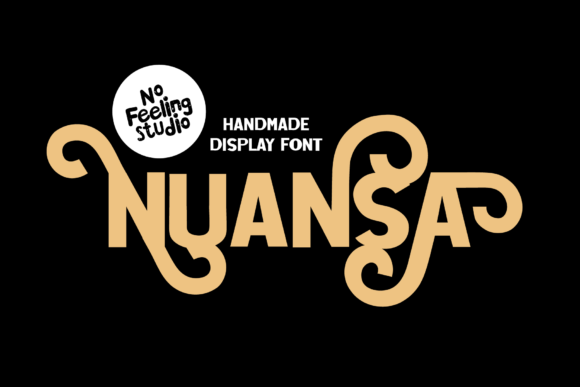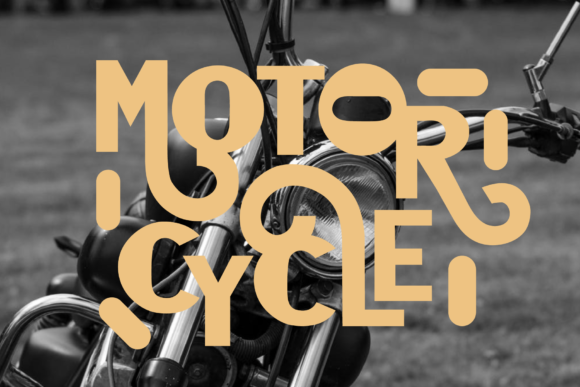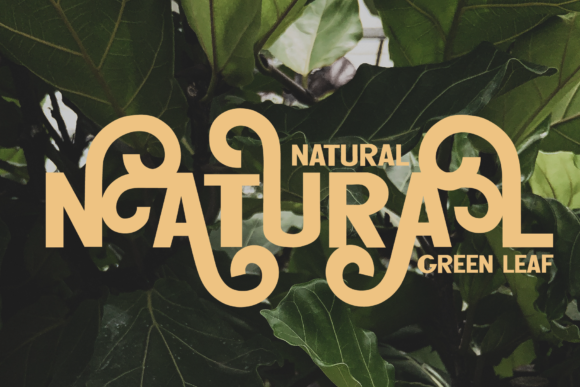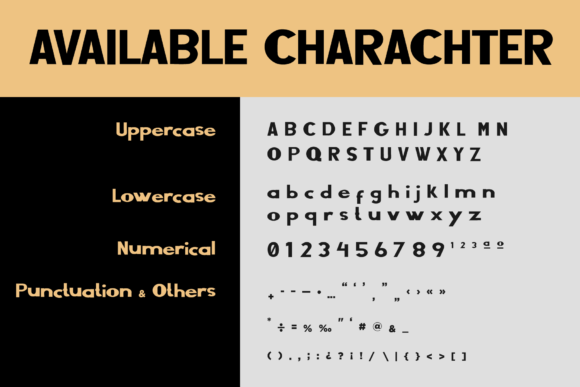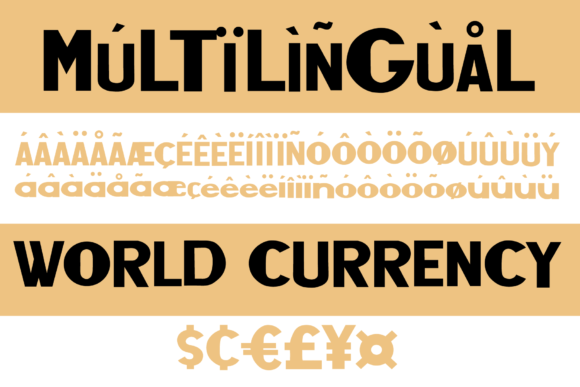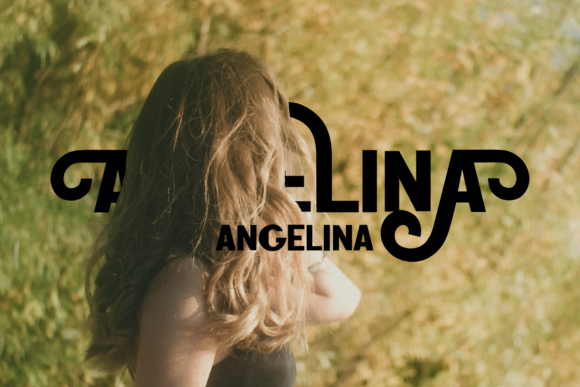
Introduction to Nuansa Font
As a designer, there’s nothing quite like the rush of inspiration that comes from discovering a new, game-changing font. For me, that moment happened when I stumbled upon the Nuansa Font. Its sleek, modern lines and smooth curves had me hooked from the start, and I knew I had to add it to my design arsenal. With its versatility and high-quality design, the Nuansa Font is perfect for fashion branding, editorial designs, and any creative project that requires a touch of sophistication.
What sets the Nuansa Font apart is its unique ability to elevate any design to the next level. Its clean, minimalist aesthetic makes it an excellent choice for designers who want to add a professional touch to their work. Whether you’re working on a fashion campaign or a magazine layout, the Nuansa Font is sure to deliver. And the best part? It’s available for free download, making it an invaluable resource for designers of all levels.
Key Features of Nuansa Font
- Unique, stylish font perfect for adding a touch of elegance to any design
Honest Review: Nuansa Font
I recently had the chance to work with the Nuansa Font, and I must say it’s been a great addition to my design resource library. The font is perfect for any creative project that requires a unique and eye-catching look.
One of the things that I love about the Nuansa Font is its versatility. It’s available for free download, which is a huge plus for designers on a budget. The font is also of high quality, with smooth lines and a clear, transparent background that makes it easy to read.
Here are some of the things that work well with the Nuansa Font:
- ✨ Unique and elegant design that adds a touch of sophistication to any project
- ✨ High-quality font that is perfect for printing or digital use
- ✨ Easy to read, even in small sizes
- ✨ Transparent background makes it easy to layer with other design elements
Of course, no font is perfect, and the Nuansa Font has a few limitations:
- ⚠️ Limited character set, which may not be suitable for projects that require a wide range of characters
- ⚠️ May not be compatible with all operating systems or software
Overall, I’m really impressed with the Nuansa Font. It’s a great addition to any design library, and I would highly recommend it to anyone looking for a unique and high-quality font for their creative project.
Nuansa Font: A High-Quality Design Resource
The Nuansa Font is a free download that can elevate your creative project with its high-quality design. This versatile font is perfect for various applications, from digital to print media.
Tips for Getting the Most Out of Nuansa Font
For optimal results, use the Nuansa Font in combination with other high-quality design elements. Experiment with different font sizes, colors, and arrangements to create visually striking designs.
The Nuansa Font is suitable for a wide range of applications, including graphic design, branding, and digital media. Its transparent background makes it an ideal choice for designing logos, icons, and other graphics that require seamless integration with other design elements.
When compared to Nuansa Font, Great Vibes Font has a more refined and polished look, making it suitable for a wider range of design applications.
The Alex Brush Font is a beautiful, handwritten font that’s perfect for designers looking for a high-quality, free download for their creative projects. It features a transparent background and is ideal for use in logo designs, packaging, and other design elements where a touch of elegance is desired.